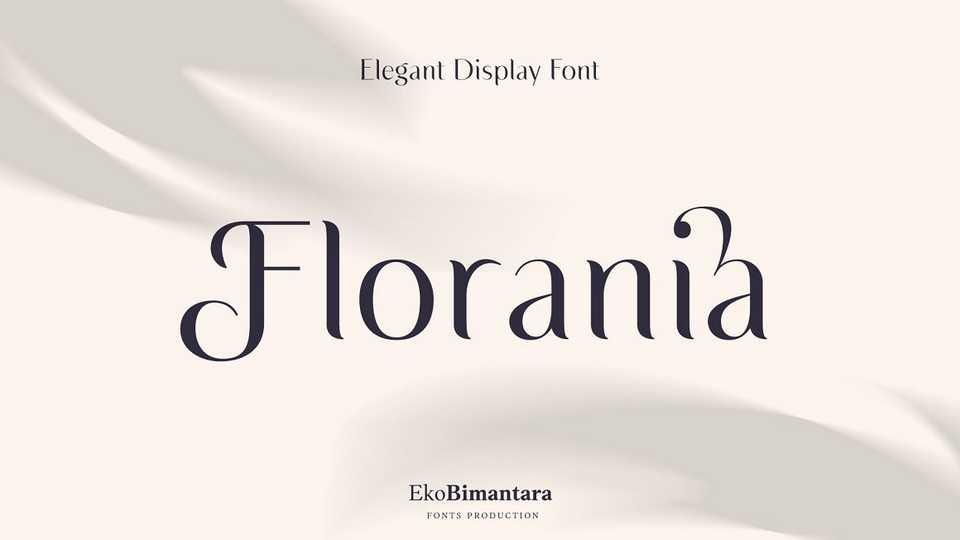
Download Florania font, an elegant yet versatile typeface that shown beauty and classy look. Florania is fit for display, title, large sizes, and short text.